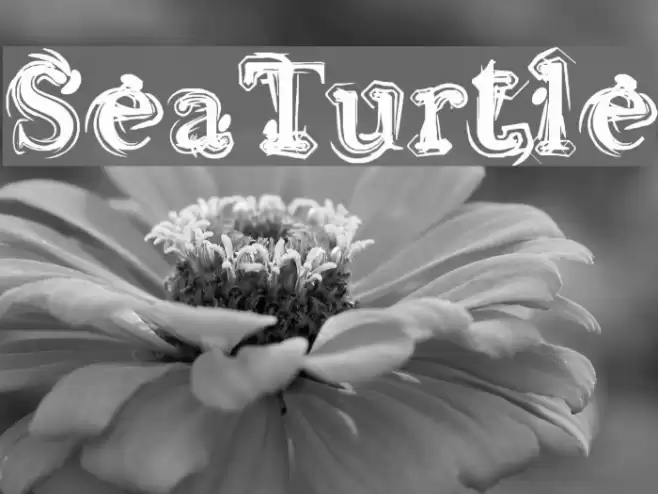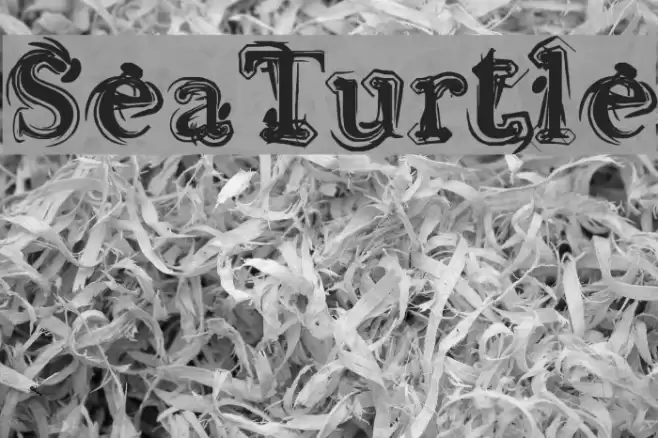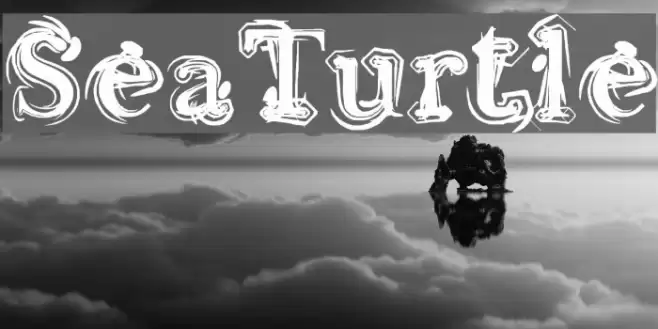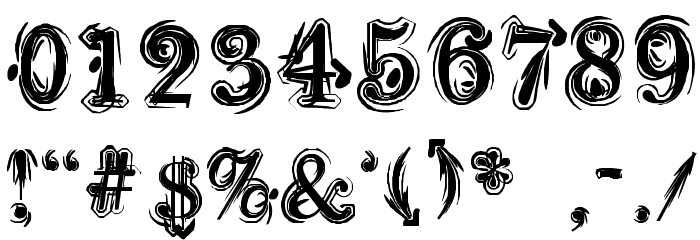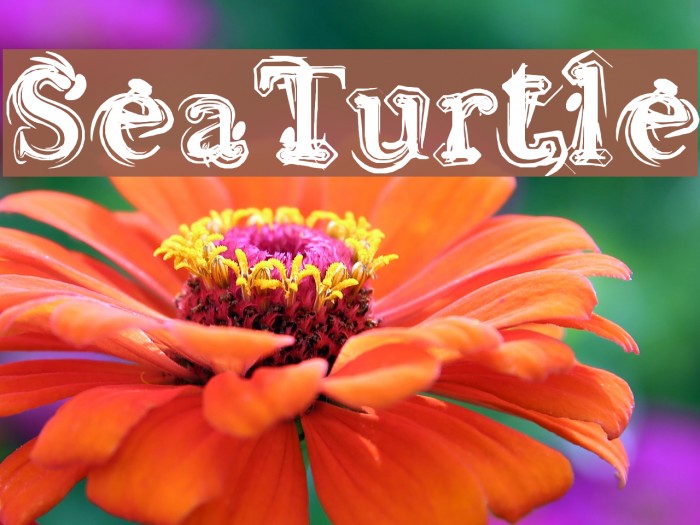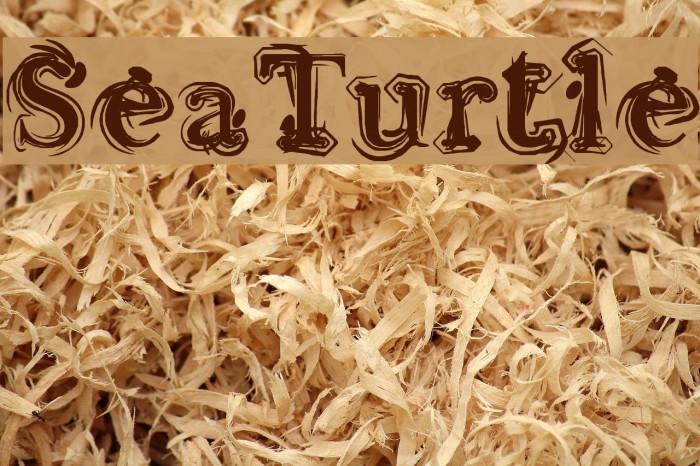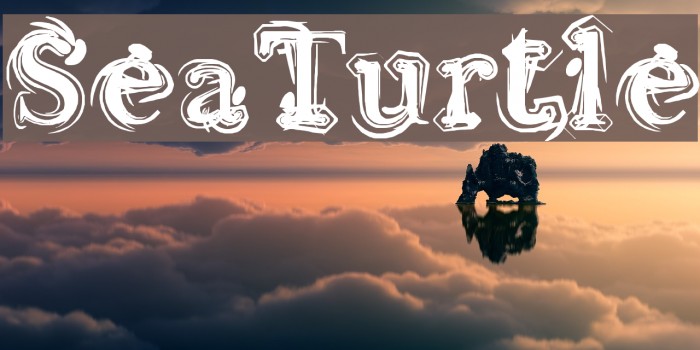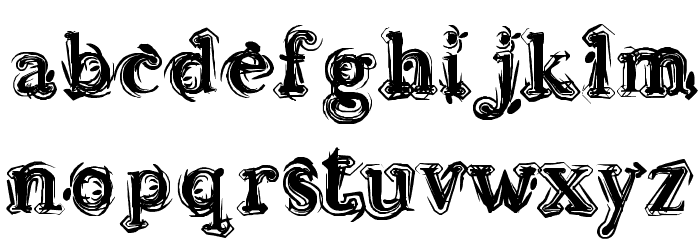
Sea Turtle Font
Sea Turtle Description
This font features a highly decorative and artistic style, characterized by intricate swirls and embellishments that give each letter a unique, ornate appearance. The bold strokes and elaborate details create a sense of movement and fluidity, reminiscent of ocean waves or swirling currents. The uppercase and lowercase letters maintain a consistent design theme, with the numbers and special characters also reflecting the same artistic flair. This font's distinctive style makes it stand out, offering a visually striking option for creative projects.
An ornate, decorative font with swirling, wave-like embellishments from Distorted Eroded fonts.
- Proposed Projects: Ideal for creative projects such as event invitations, artistic posters, branding for ocean-themed businesses, or any design requiring a bold, decorative touch.